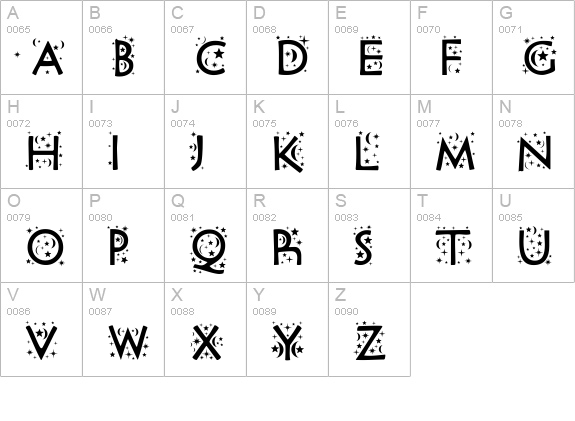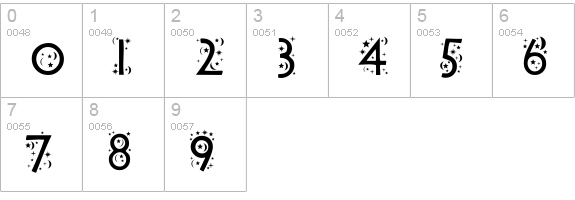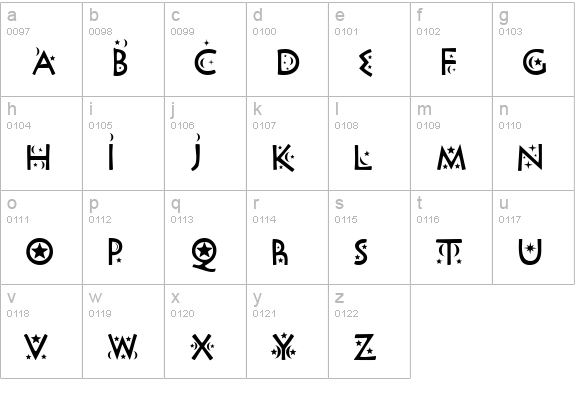
Night Sky_TR Font Details
Night Sky_TR font is a stunning display typeface that captures the essence of a starry night sky with its elegant and mysterious design. This font features intricate details and flowing lines that evoke a sense of wonder and beauty. Whether you're working on a poster, logo, or any creative project that needs a touch of celestial charm, Night Sky_TR is the perfect choice. The best part? Night Sky_TR font is completely free to download at FontsMarket.com. Embrace the magic of the night sky in your designs with this unique and captivating typeface. Let your creativity shine with Night Sky_TR font today!